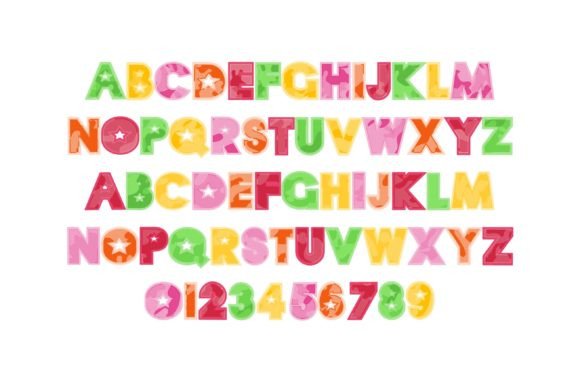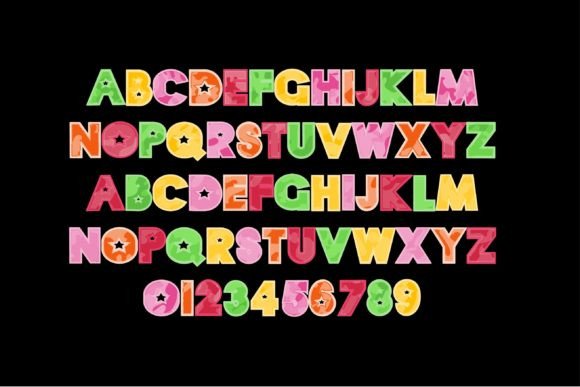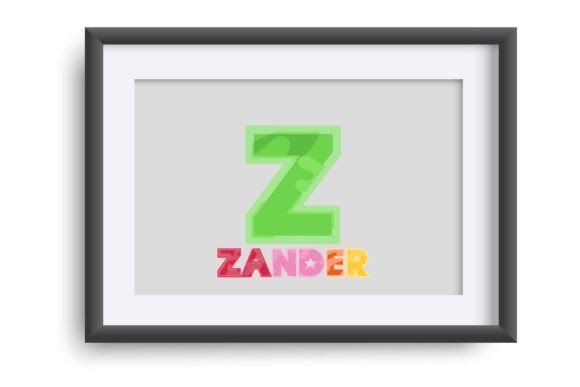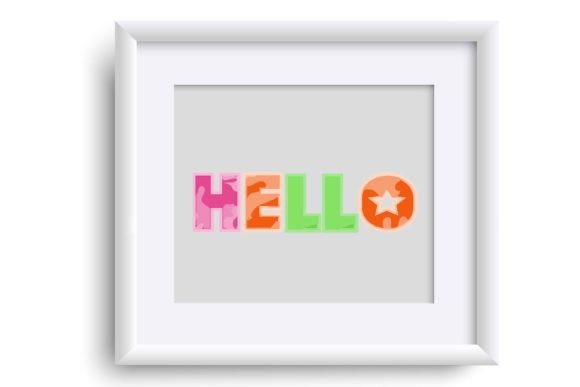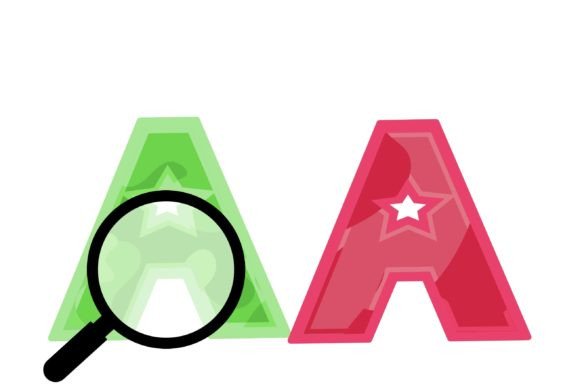
Introducing Camo Summer Font: Add a Pop of Color to Your Designs
Are you tired of using the same old fonts in your designs? Do you want to add a touch of personality and whimsy to your projects? Look no further than the Camo Summer Font, a full-color font that features a mix of summer colors on camouflaged lettering. In this article, we’ll take a closer look at this unique font and how you can use it to elevate your designs.
What is Camo Summer Font?
Camo Summer Font is an OpenType full-color (SVG) font that combines the classic camouflage pattern with a burst of summer colors. The result is a fun and playful font that’s perfect for adding a touch of personality to your designs. Whether you’re a designer, crafter, or DIY enthusiast, this font is sure to inspire your creativity.
Benefits of Using Camo Summer Font
So why should you use Camo Summer Font in your designs? Here are just a few benefits:
- Add a touch of personality: With its unique camouflage pattern and summer colors, Camo Summer Font is sure to add a touch of personality to your designs.
- Vector-based: As an SVG font, Camo Summer Font is vector-based, which means it can be scaled to any size without losing quality.
- Versatile: Use Camo Summer Font to create everything from simple text logos to complex illustrations.
Design Ideas with Camo Summer Font
So what can you create with Camo Summer Font? Here are a few ideas to get you started:
- Summer-themed crafts: Use Camo Summer Font to add a touch of summer fun to your crafts, such as scrapbooking pages, cards, and DIY projects.
- Outdoor-inspired designs: The camouflage pattern in Camo Summer Font makes it perfect for outdoor-inspired designs, such as hunting or camping-themed projects.
- Festive party decor: Use Camo Summer Font to create festive party decor, such as banners, signs, and invitations.
- Unique logos and branding: Stand out from the crowd with a unique logo or branding that incorporates Camo Summer Font.
Camo Summer Font is a fun and playful font that’s perfect for adding a touch of personality to your designs. With its unique camouflage pattern and summer colors, it’s sure to inspire your creativity. Whether you’re a designer, crafter, or DIY enthusiast, this font is a great addition to your font library. So why not give it a try and see what amazing designs you can create?